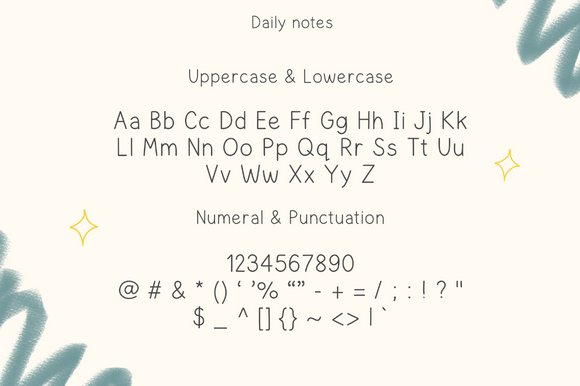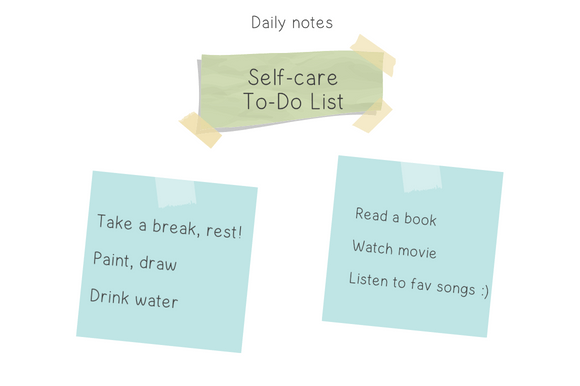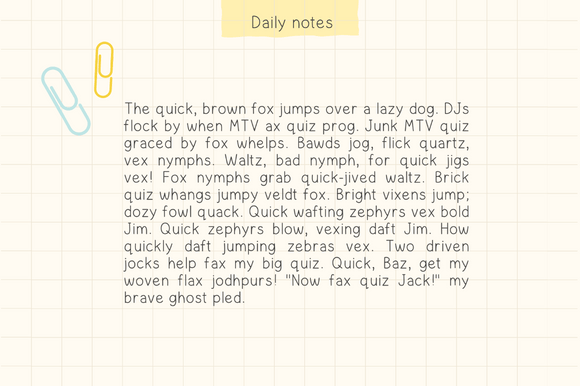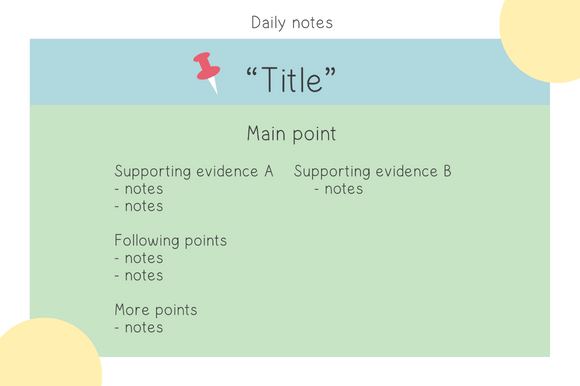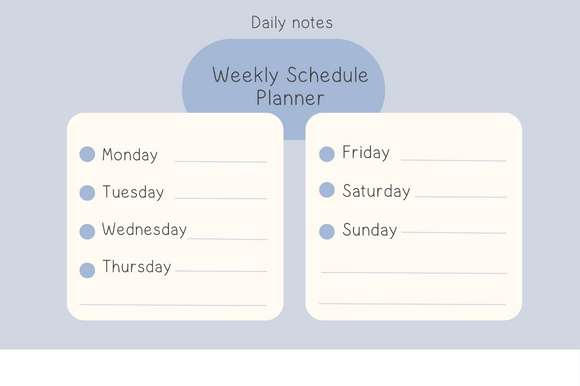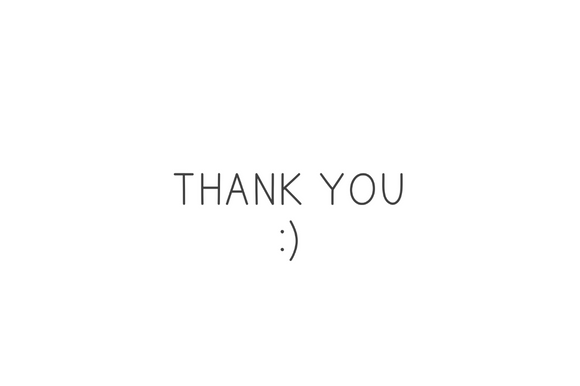
The Daily Notes Font: A Neat and Tidy Handwritten Companion
I’ll never forget the time I was working on a personal planner project, pouring my heart and soul into making it both functional and visually appealing. As I sat in front of my computer, surrounded by design drafts and font options, I realized I was stuck. The fonts I had chosen just didn’t feel right – they were either too formal or too quirky. That’s when I stumbled upon the Daily Notes font. It was like a breath of fresh air! ✨
So, what makes the Daily Notes font so special? Let’s dive into the good stuff and, of course, a few quirks I’ve noticed.
- ✅ Readability: It’s clear and easy to read, even at smaller sizes, which is perfect for note-taking and journaling.
- ✨ Casual Aesthetic: It has a beautifully casual look that feels approachable and friendly, ideal for planners, blog posts, and invitations.
- 🎉 Versatility: Daily Notes seems to fit a wide range of projects, from digital to print, without looking out of place.
While Daily Notes has won my heart, there are a couple of things to keep in mind:
- ⚠️ Limited Extras: It doesn’t come with a vast array of OpenType features or stylistic alternates, which might be a slight letdown for some users.
- 🤔 Overuse: Because it’s so pleasant to read and use, there’s a risk of overusing it across multiple projects, which can lead to a somewhat uniform look if not balanced with other fonts.
The Story Behind Daily Notes
Daily Notes was designed with the intention of creating a clean, readable handwritten font for everyday use. The designer aimed to capture the feel of quick notes jotted down in a journal, making it perfect for digital and print applications alike.
Q: Is Daily Notes suitable for professional projects?
A: Absolutely! Its clean and readable design makes it a great choice for professional use, whether it’s for presentations, reports, or marketing materials.
Q: Does Daily Notes support OpenType features?
A: Daily Notes supports basic OpenType features, but it might not have the extensive set of features that some other fonts offer. It’s best to check the font documentation for specifics.